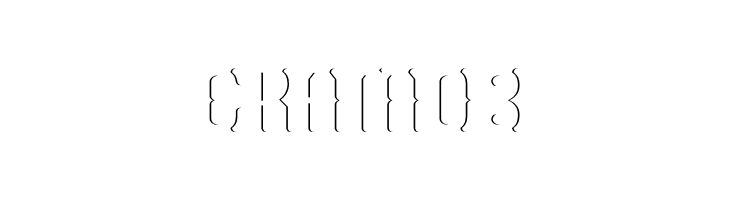
A bold, expressive script font with elegant, flowing cursive letters.
( Fonts by David Kerkhoff - www.hanodedphotography.com )
A runic-inspired font with bold, angular, and geometric shapes.
A bold, geometric font with sharp edges and a condensed, industrial style.
A bold, vintage-style font with sharp, angular edges and high contrast.
A modern, stencil-like decorative font with geometric and artistic elements.
A modern stencil-style font with sharp angles and clean lines.
( Scott Simpson )
A sleek, modern italic font with thin, elongated characters.
( Scott Simpson )
A sleek, minimalistic font with thin, elongated characters for a modern look.
A bold, flowing script font with high contrast and dynamic elegance.